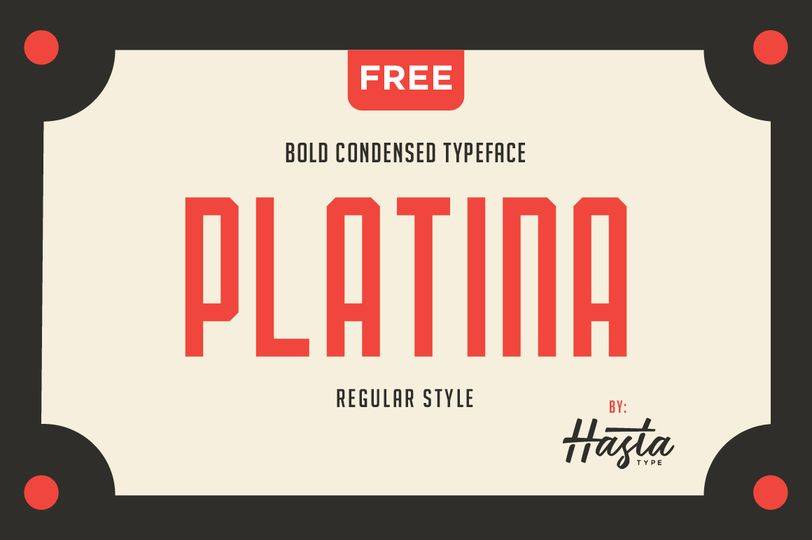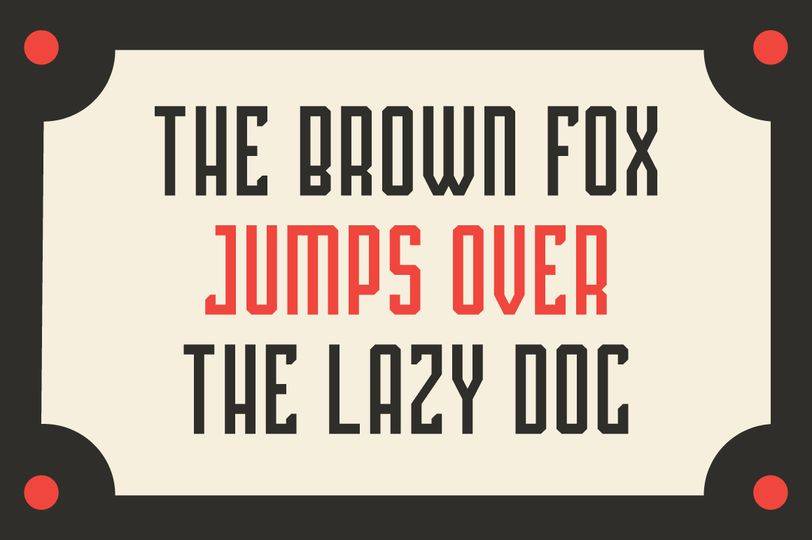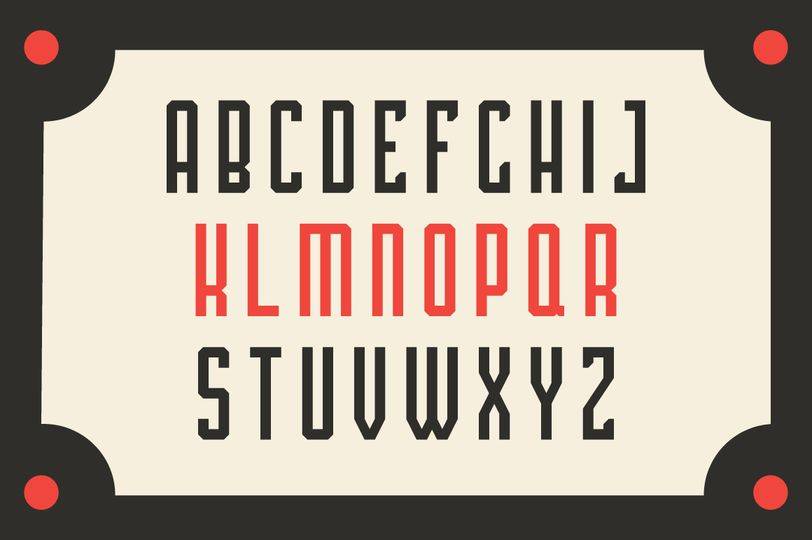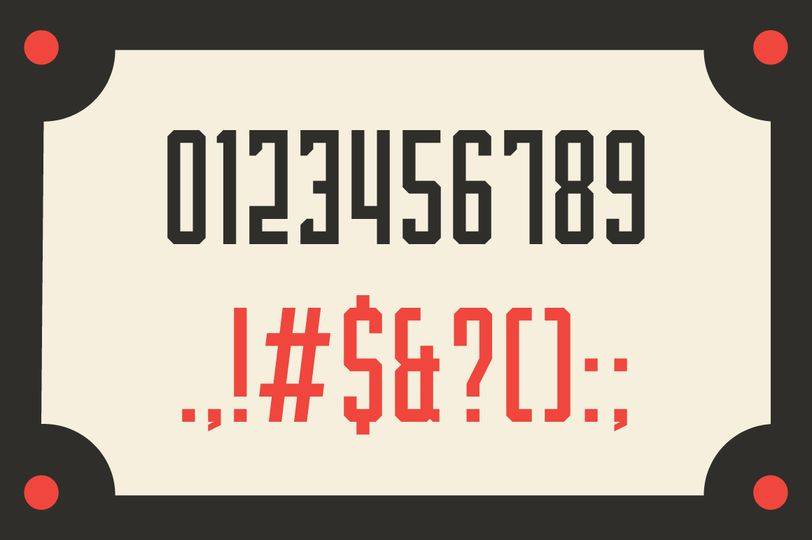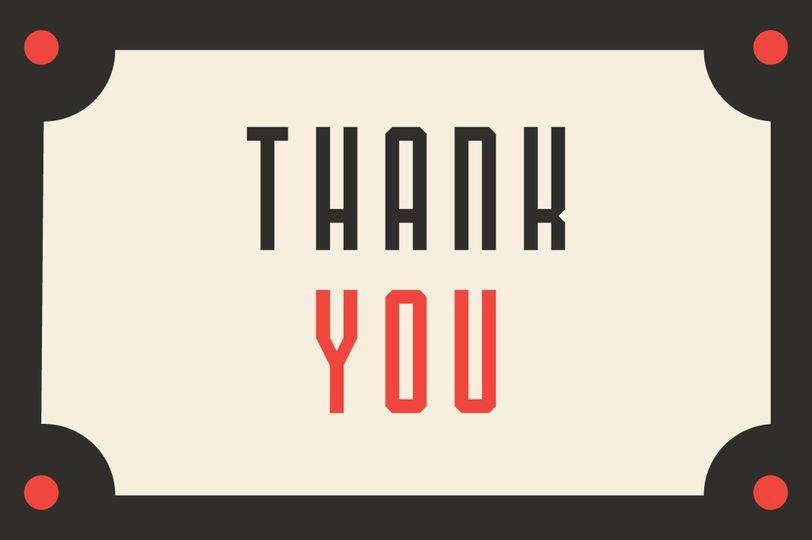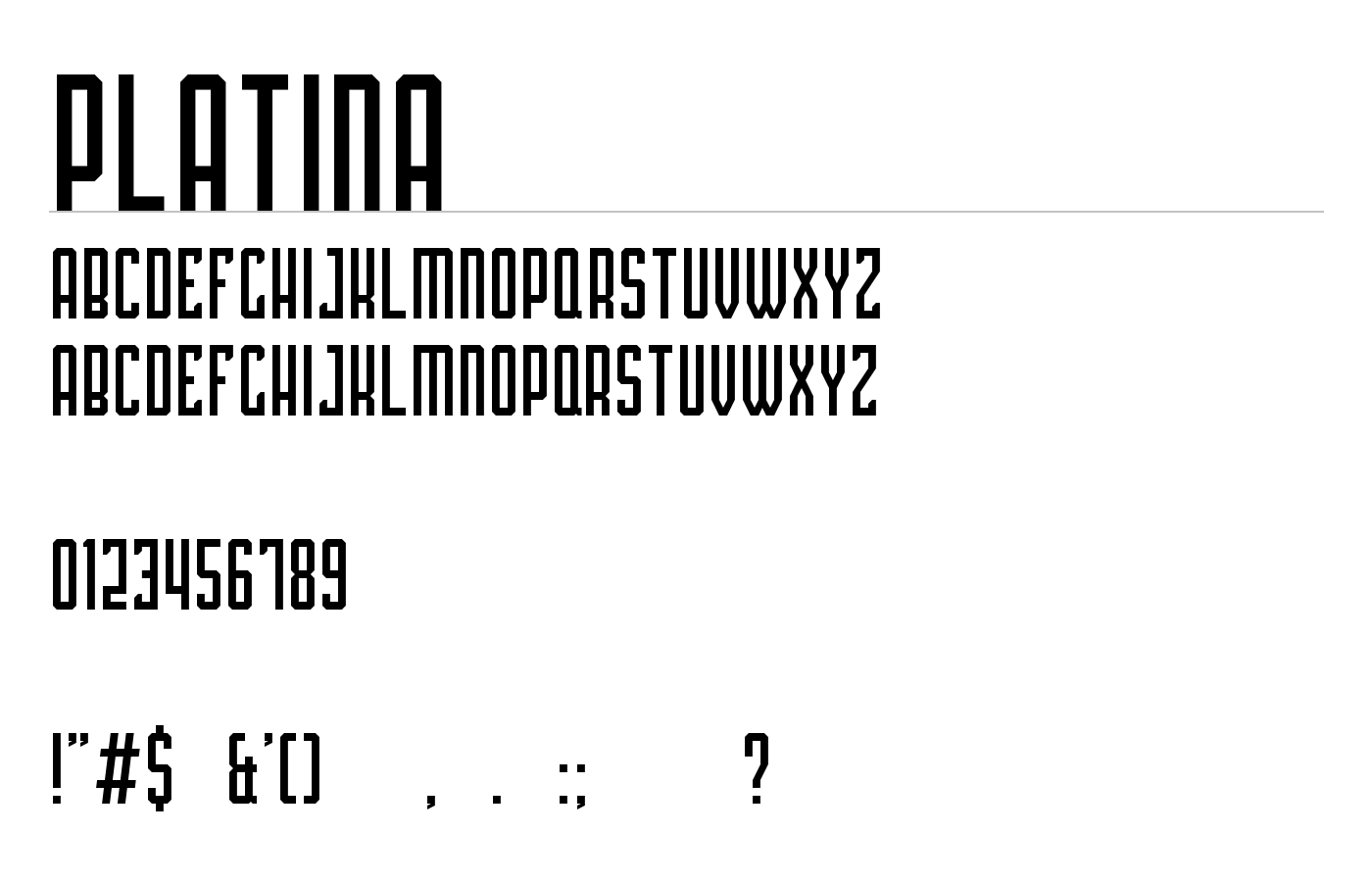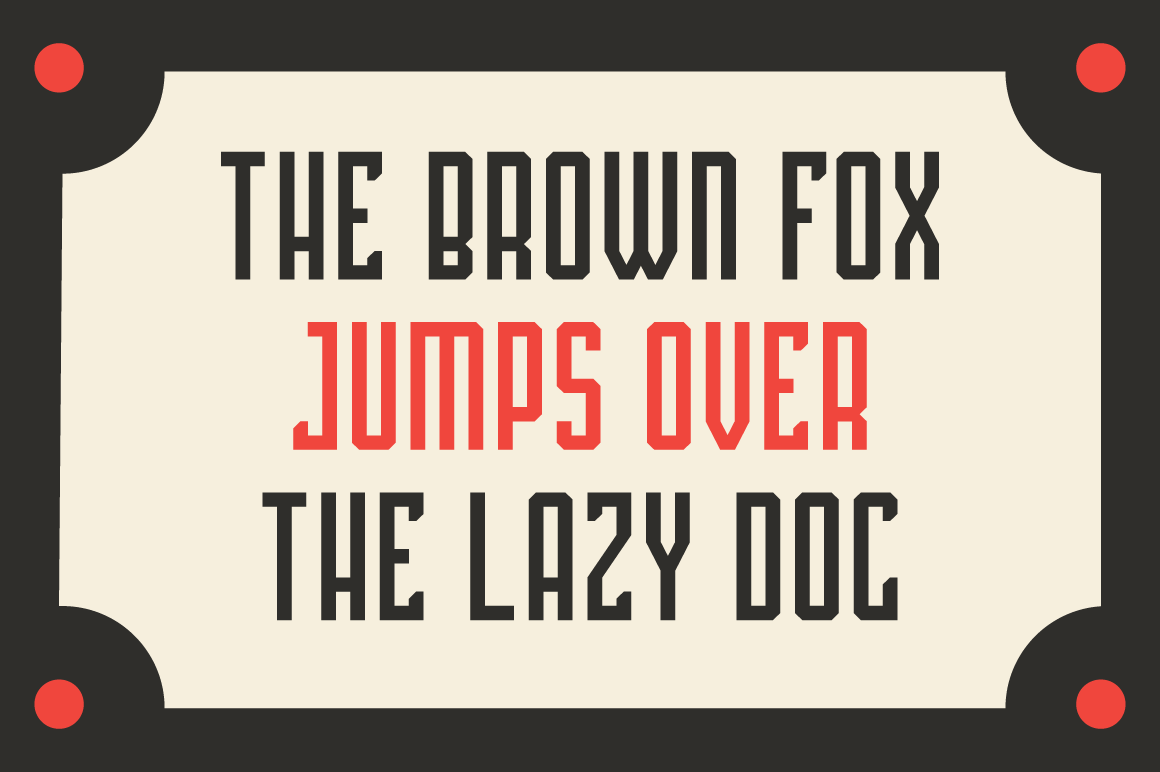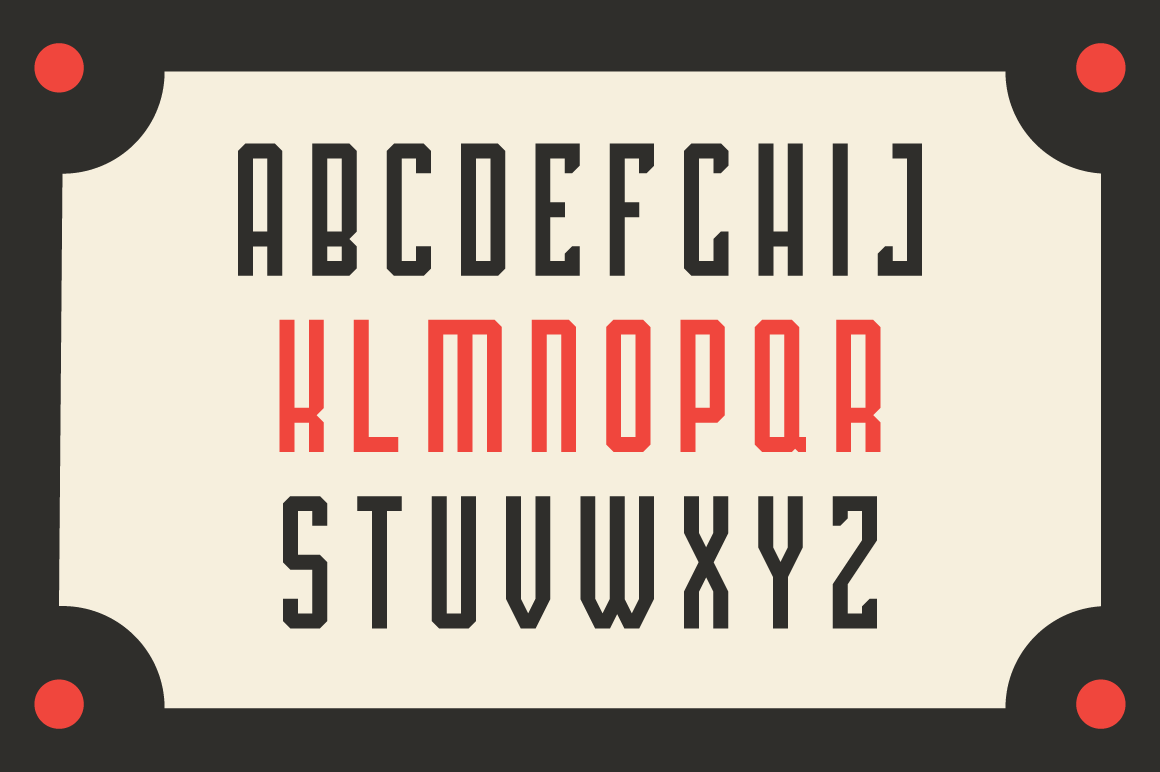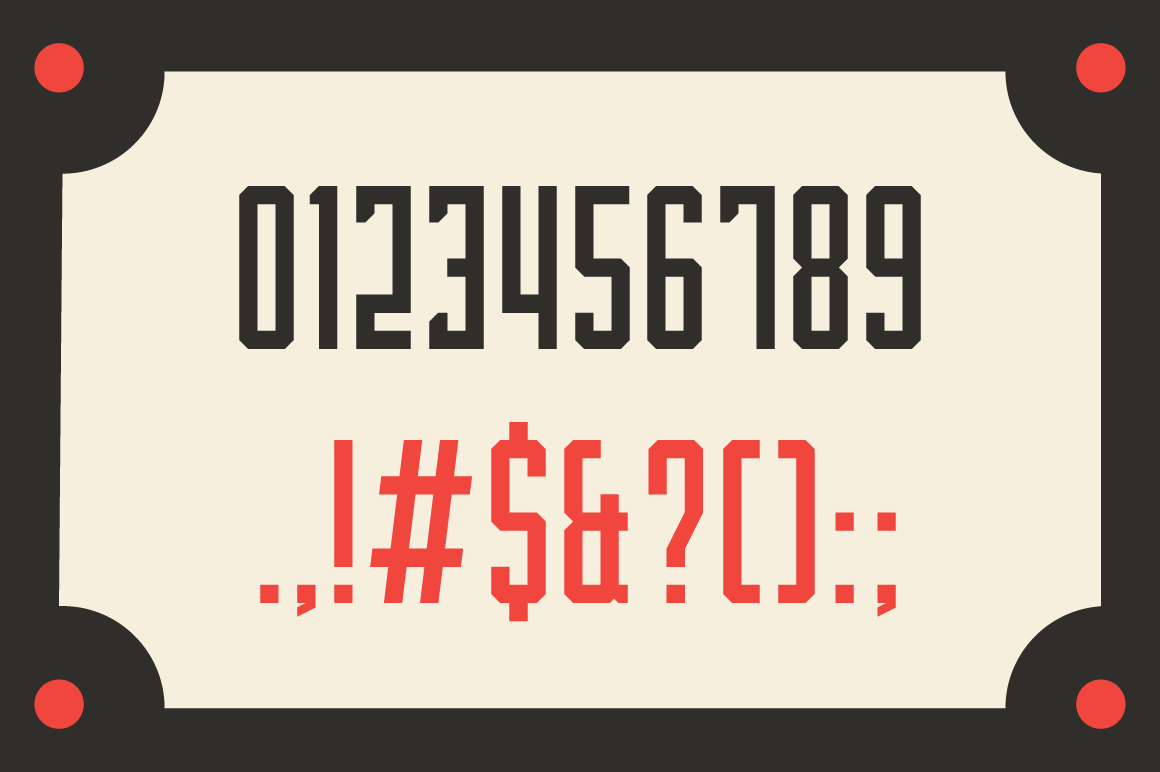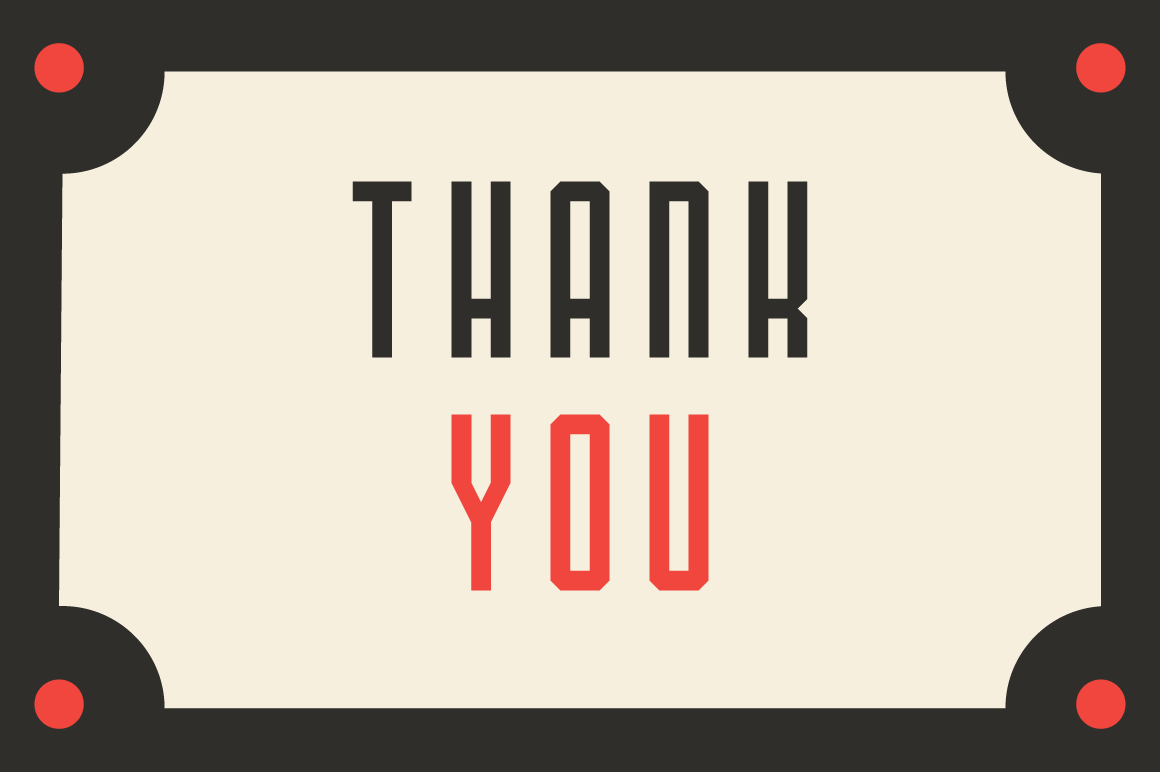
Platina is a condensed sans serif font that stands tall with its narrow, geometric letterforms and consistent stroke weight, creating a bold yet clean appearance. Its sharp edges and monoline design give it a modern, industrial feel, making it ideal for striking headlines, logos, and branding where a strong visual impact is needed. This font works best in contexts that demand clarity and a contemporary edge without sacrificing legibility.
Platina
About Platina
| Font family | Platina |
| Release date | 2018-08-15 |
| Designer | Salman Mashudi |